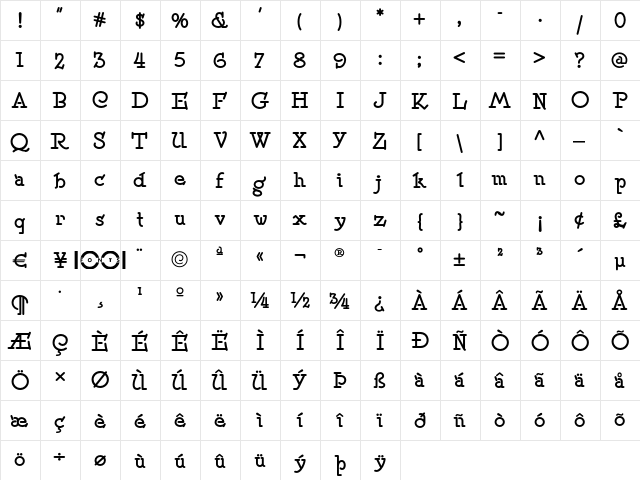
Speedball No 2 NF Bold
Design Context for Speedball No 2 NF Typeface
Speedball No 2 NF takes a measured approach to typography — its balanced proportions and neutral character make it a reliable workhorse for both digital and print work. Its bold stroke weight gives it real presence on the page.